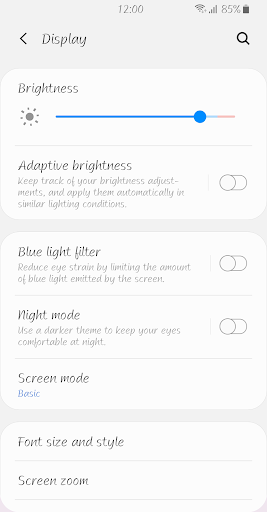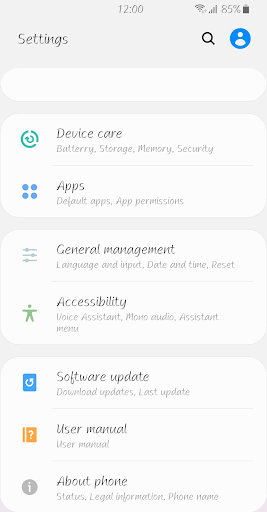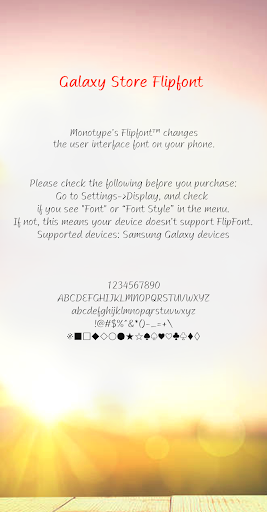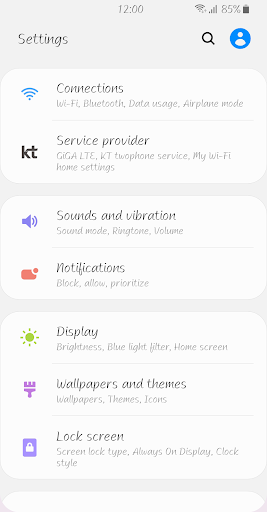
ZF Daylight
This font is a pen style font that feels comfortable.
The smooth movement felt by the ink pen and the natural change in thickness show a comfortable and stable appearance.